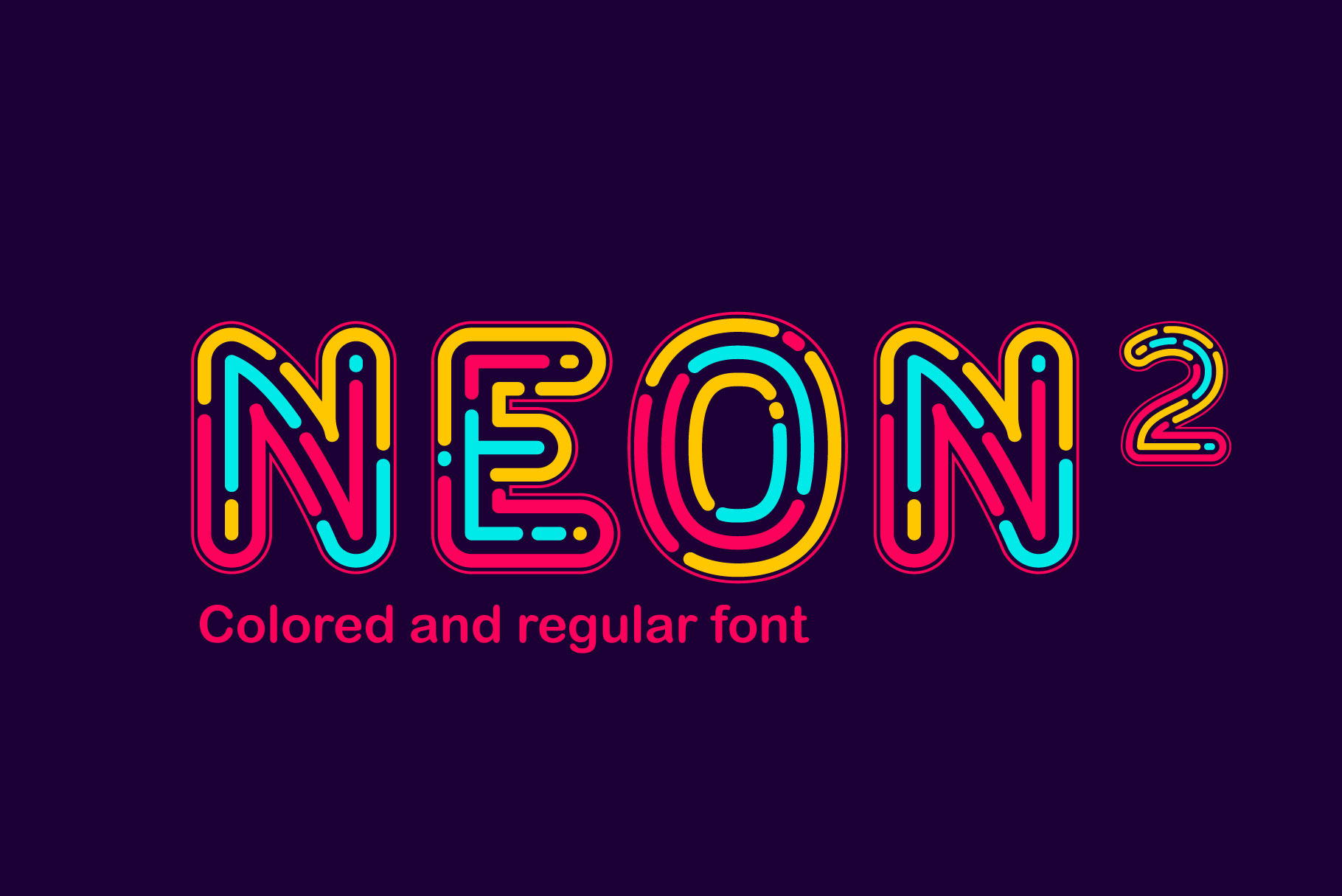
Neon Line 2 font
Alphabet letters formed by neon lines.
Uppercase letters from A to Z (26 characters) + numbers and punctuation marks. Typeface for casino labels, nightlife headlines, bright posters, fashion cards etc.